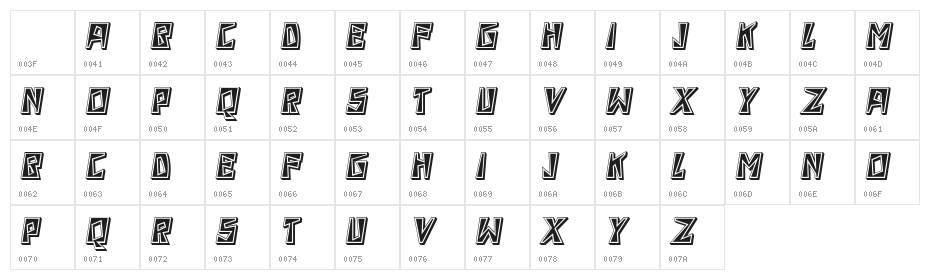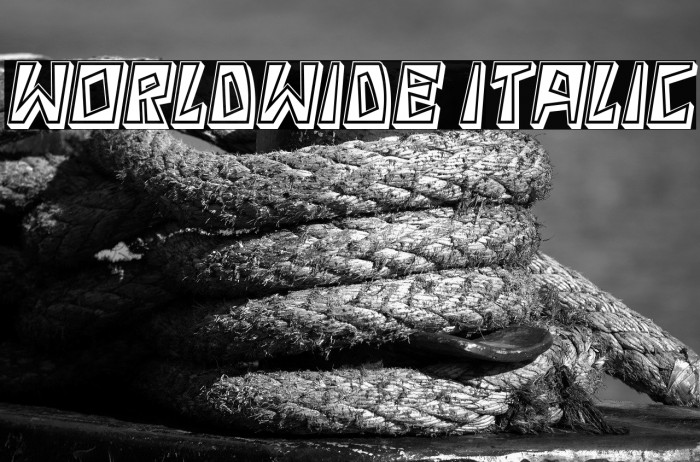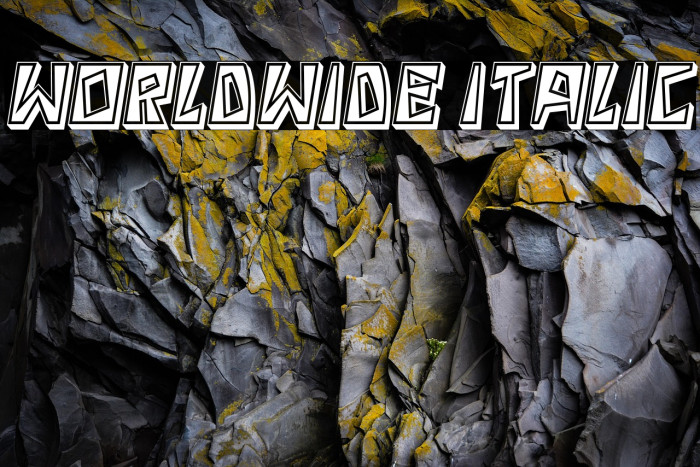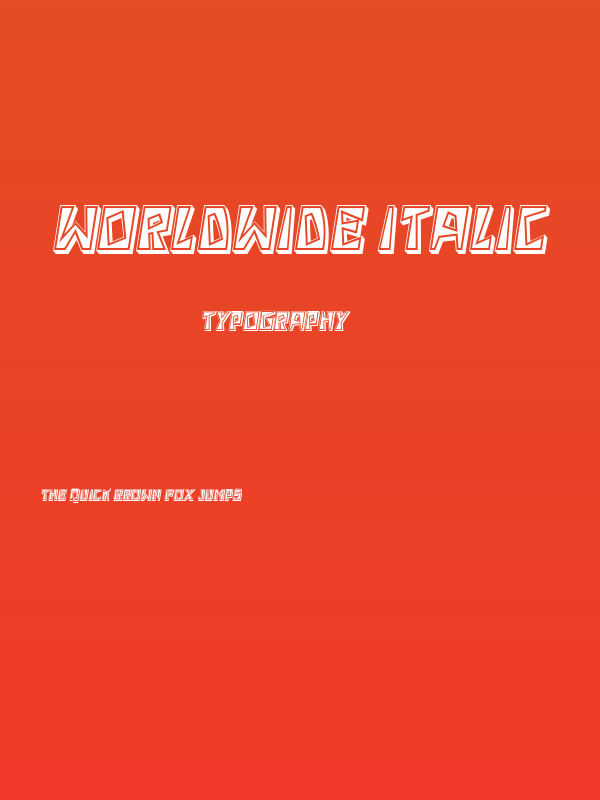
Worldwide Italic Font
Worldwide Italic Description
This font features a bold, dynamic style with a three-dimensional effect created by its shadowed outline. The characters are uppercase and exhibit a strong, angular design with sharp edges and a slight forward slant, giving it an italicized appearance. The bold strokes are complemented by a contrasting shadow that adds depth and a sense of movement. This design is eye-catching and conveys a sense of energy and modernity, making it suitable for impactful visual statements.
| Proposed Projects | Ideal for sports branding, dynamic posters, video game titles, and any project requiring a bold, energetic typeface. |